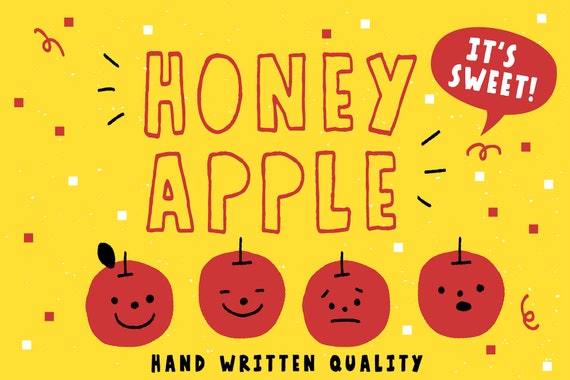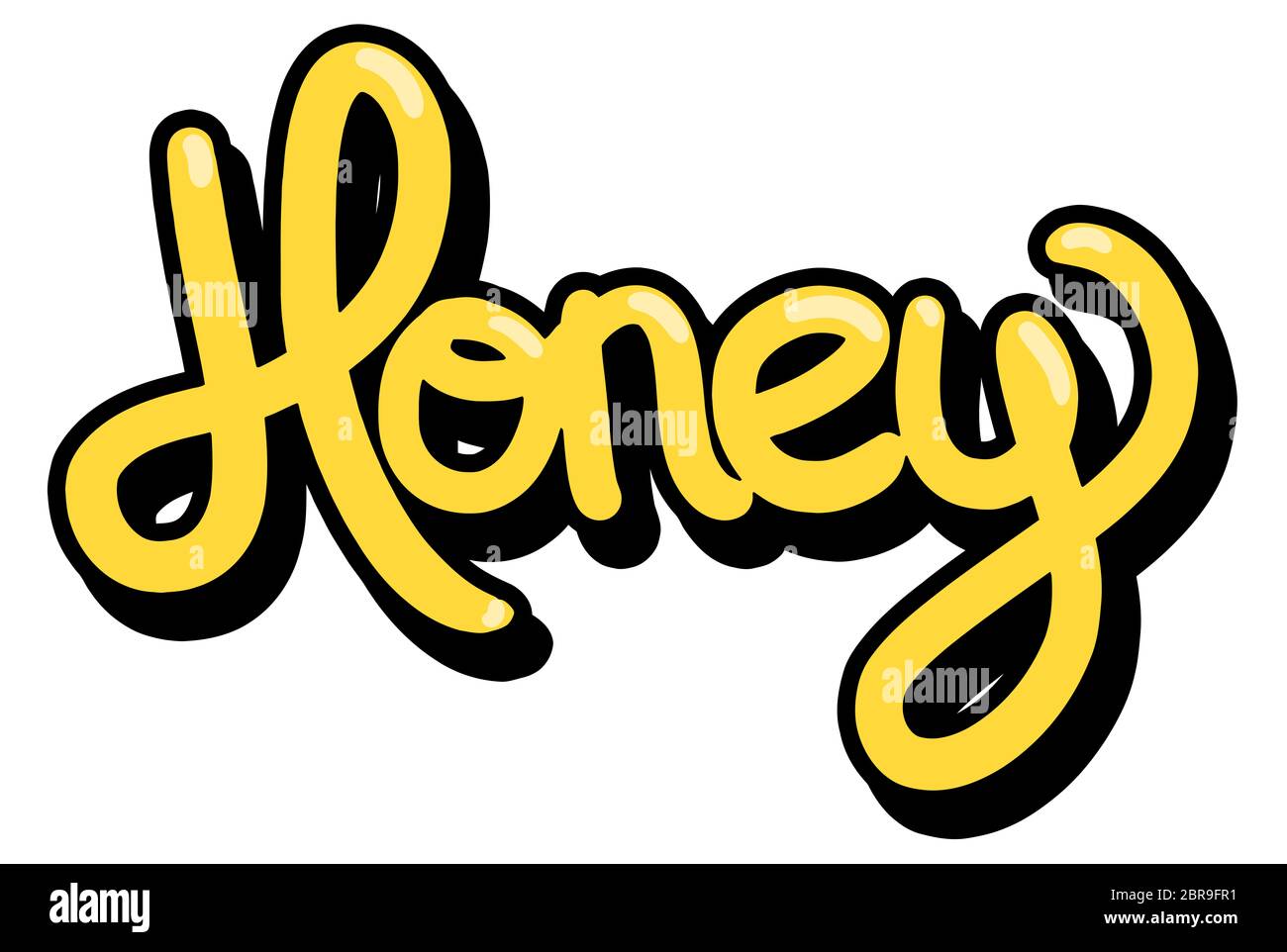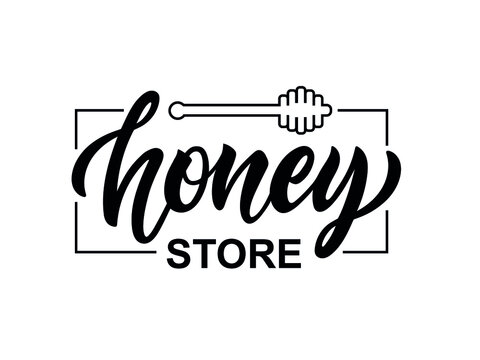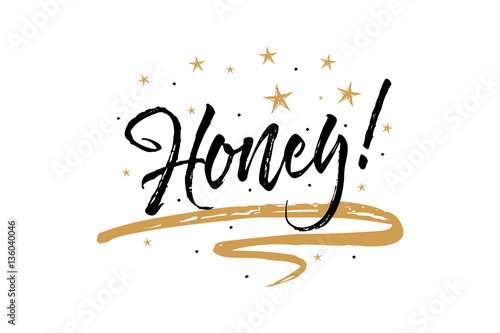
Honey Script à by Dieter Steffmann.
Lettering honey font. Moreover you can embed it to your website with font-face support. Every font is free to download. Beginning Ending Swash Connecting Heart Ligatures.
Honey Butter Script Font is a very clean sans serif typeface that is similar to lato font and lato light with an attractive uniform appearance. Simple Flowers FontPaint Water Color FontSignature CreativeHoney StarlightMilk Shake Font. - hello honeyotf all letters - hello honey tailotf beginning ending swashes.
While creating it the designer took. Honey font here refers to the font used in the cover artwork of Honey which is a hit song by the American singer Mariah Carey from her sixth studio album Butterfly. - hello honeyotf all letters - hello honey tailotf beginning ending swashes.
Honey Butter is really great font for logo blogweb headline clothing invitation poster caferesto sign and many others. Honey Butter sans Clean and Rough and Honey Butter serif Clean and Rough. About hello honey Font.
In Script Handwritten. Honey Bee is a lovely and timeless handwritten font.